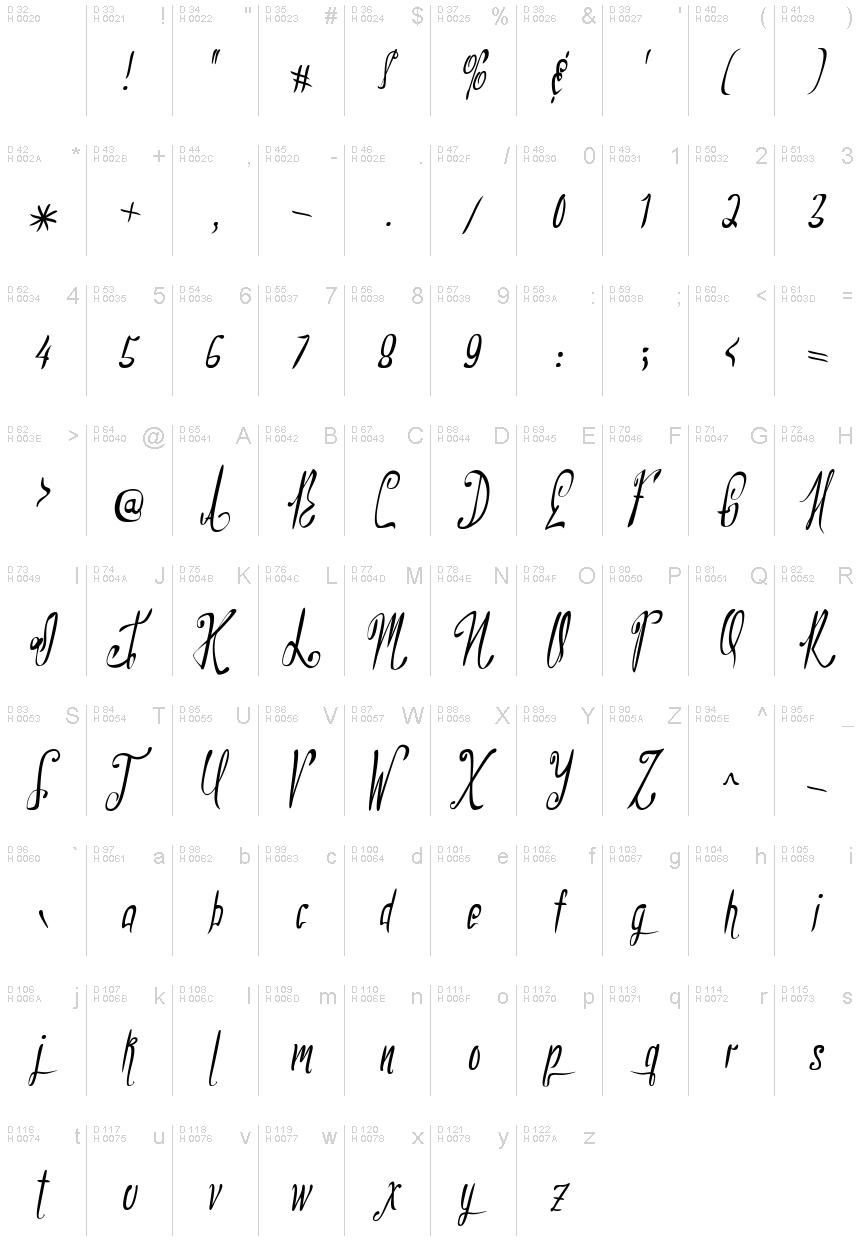
NorthernMontgomery
"Northern Montgomery" is a captivating handwritten font designed by Max Infeld Xerographer Fonts. Its light, condensed strokes exude a refined yet casual elegance, evoking a sense of warmth and approachability. The organic flow of the letterforms, with their subtle variations and imperfections, lend an authentic, handcrafted quality to the font.
This font's versatility shines through, making it a versatile choice for a wide range of design applications. From branding and packaging to editorial layouts and personal stationery, "Northern Montgomery" effortlessly blends sophistication and charm, leaving a lasting impression on the viewer.